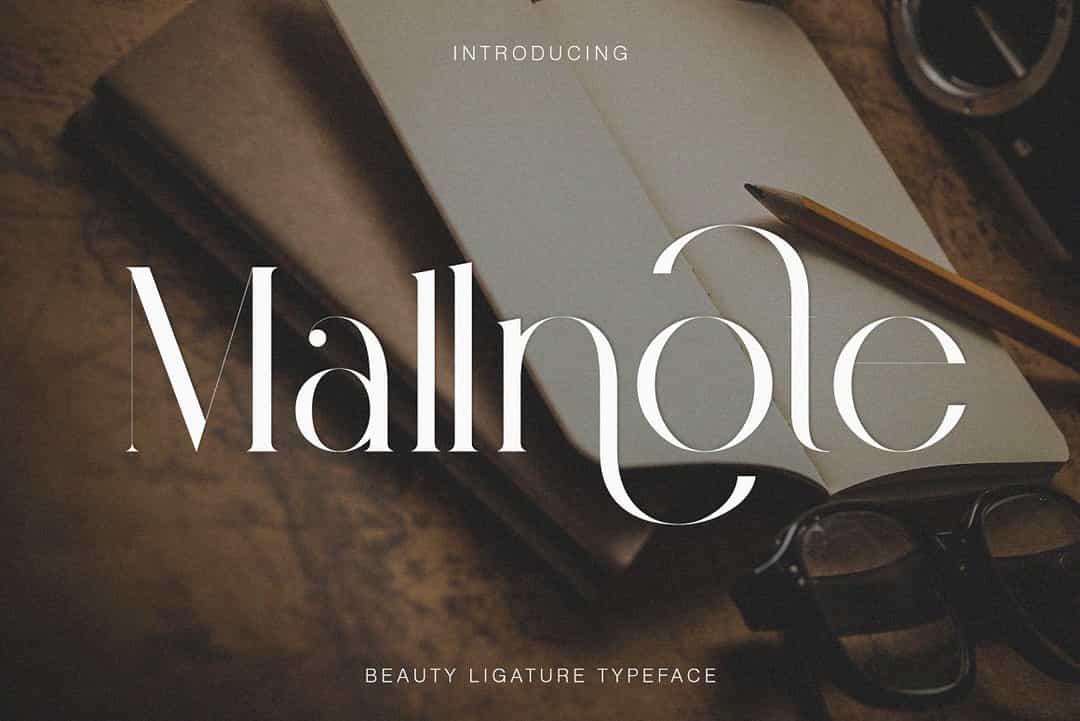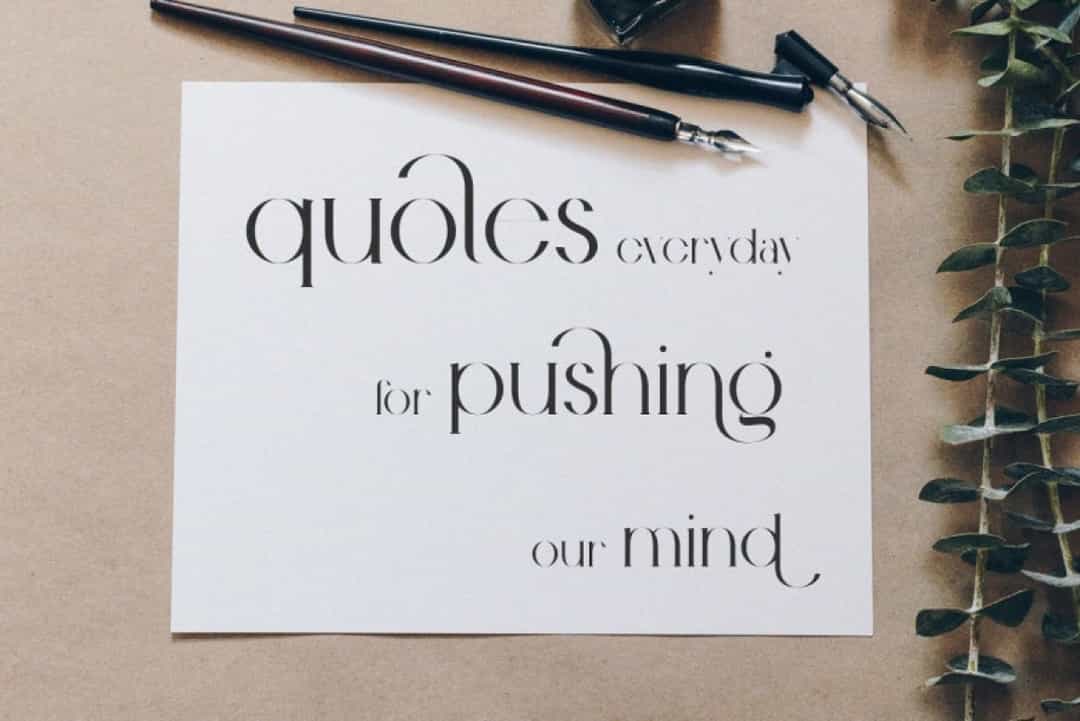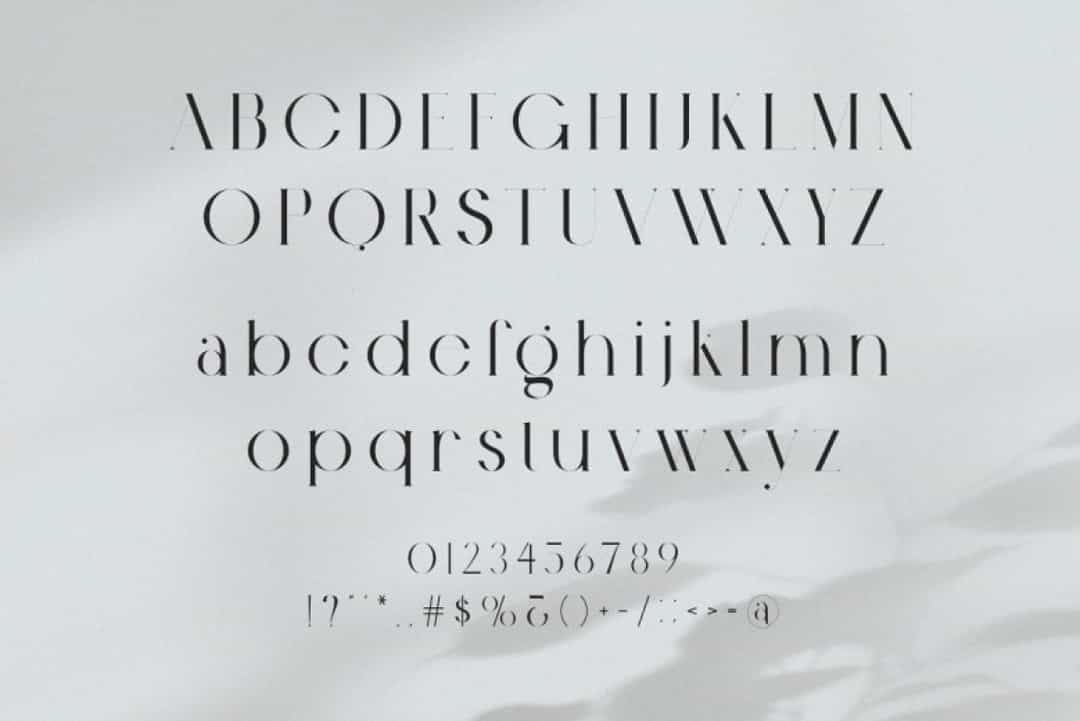
Mallnote can be described as an elegant and sophisticated serif font. Both contemporary and classic, it works beautifully for logos, magazines and social media. Mallnote font is ready to use in your next layout – give your designs an air of elegance with this font designed specifically to meet those requirements!